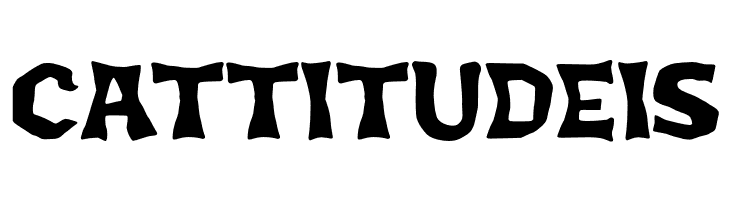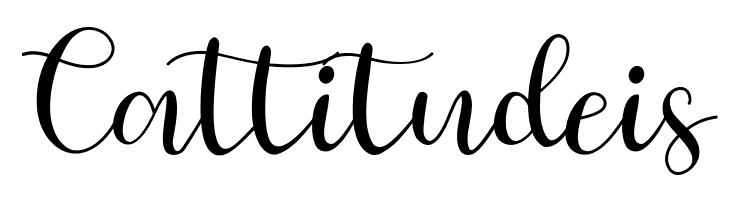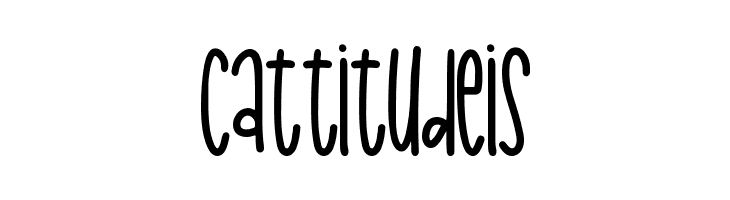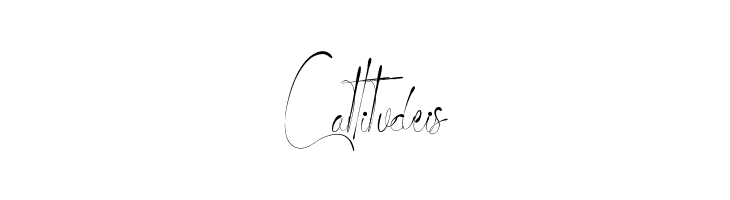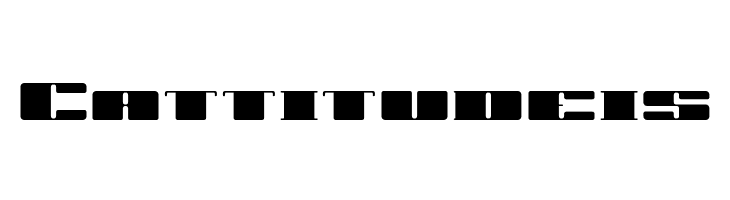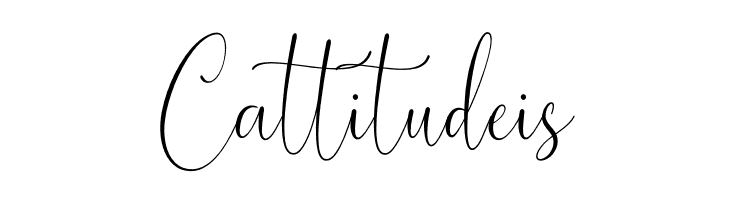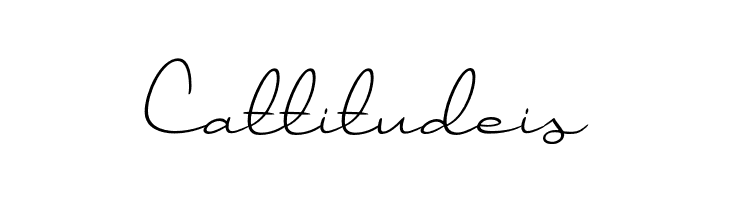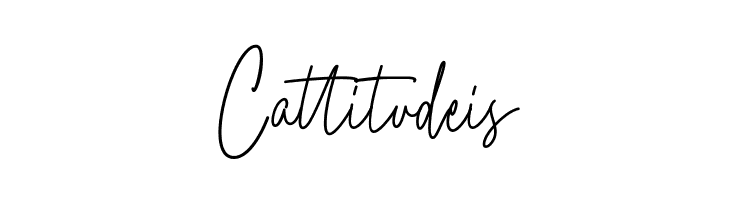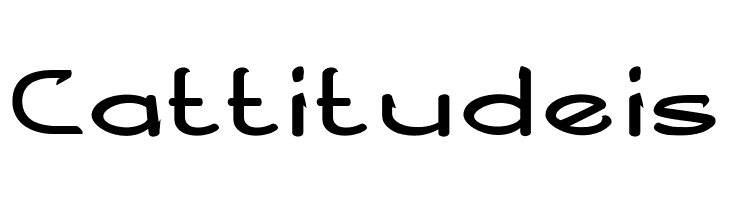
A bold, hand-drawn font with a rugged and artistic style.
A bold, angular font with a hand-crafted, dynamic style.
A bold, playful outline font with a hand-drawn, cartoonish style.
A decorative script font with elegant, flowing characters and calligraphic style.
A fluid and elegant handwritten cursive font with dynamic strokes.
A bold, playful handwritten font with thick strokes and rounded edges.
An elegant, flowing script font with intricate decorative elements.
An elegant, flowing script font with intricate loops and high contrast.
A playful, hand-drawn font with dynamic and whimsical characters.
A playful, hand-drawn font with tall, narrow characters and a whimsical style.
A playful and whimsical script font with fluid, connected letterforms.
A lively, expressive script font with dynamic strokes and playful curves.
A clean, modern sans-serif font with uniform stroke width and excellent readability.
A casual, elegant handwritten font with fluid, connected letterforms.
A bold, angular font with a futuristic and edgy design.
A bold, distressed font with a hand-painted, vintage look.
A playful, casual handwritten font with smooth, flowing lines and a whimsical touch.
An elegant, flowing script font with high contrast and delicate swirls.
A lively and elegant script font with a playful yet sophisticated flair.
A flowing, cursive script font with elegant loops and swashes.
A playful, bold font with rounded, bubbly characters.
An elegant, whimsical script font with flowing, interconnected letters and playful loops.
( Fonts by Four Lines )
A playful, bubbly font with a hand-drawn, whimsical style.
( Fonts by Four Lines )
A playful, bold font with thick, rounded strokes and a whimsical style.
( Fonts by epiclinez )
A bold, playful font with rounded, hand-drawn characters.
( Fonts by Typefar - Farul Arjianto - Personal-use only. For commercial use please contact owner. )
A playful and bold handwritten font with a smooth, rounded style.
( Fonts by DmLetter31 - Dimas Prasetyo - Personal-use only. For commercial use please contact owner. )
A playful, handwritten font with bold strokes and a lively, casual style.
A bold, playful script font with a handwritten style.
( Fonts by Stefie Justprince )
A playful, bold, and rounded font with a hand-drawn, whimsical style.
( Fonts by Midvel - Ahmad Jafar Shadiq - Personal-use only. For commercial use please contact owner. )
A playful, hand-drawn style font with bold, rounded characters.
A bold, rounded, and italic font with a modern, futuristic style.
A decorative cursive font with elegant loops and swirls.